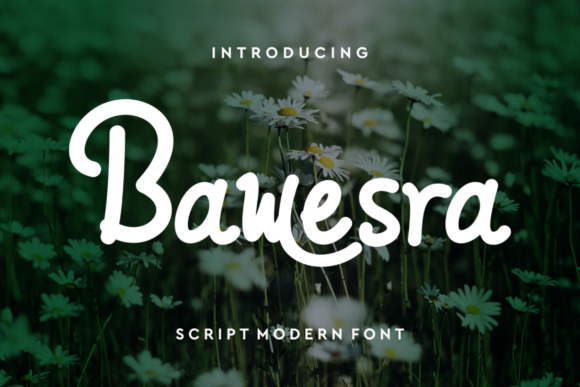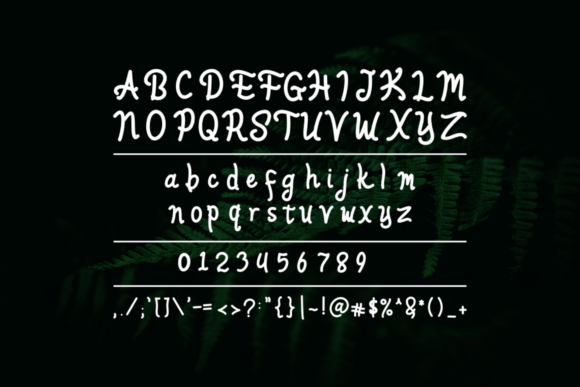
Bawesra Font
About Bawesra Font
Bawesra is a vintage styled and delicate script font. The font is suitable for any branding project like logo, t-shirt printing, sporting design, and many more. It will look outstanding in a wide range of contexts.